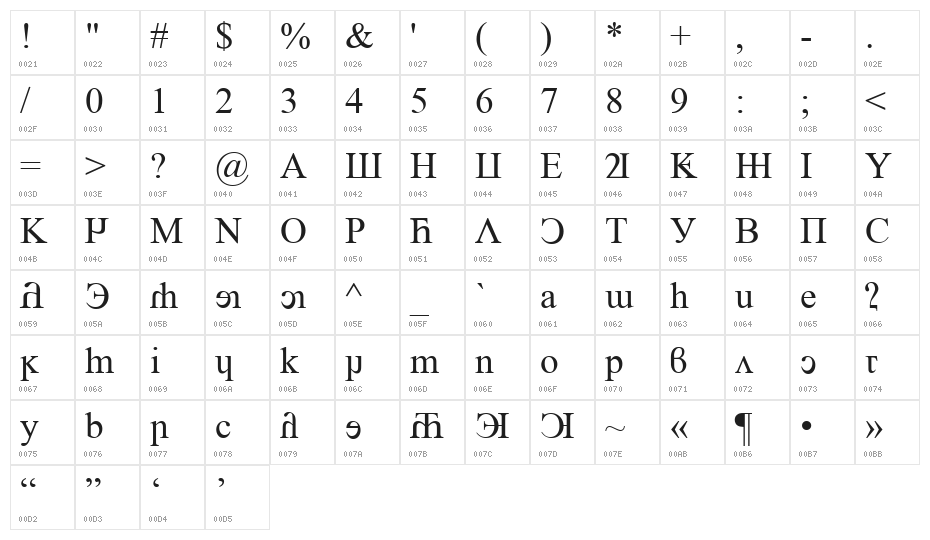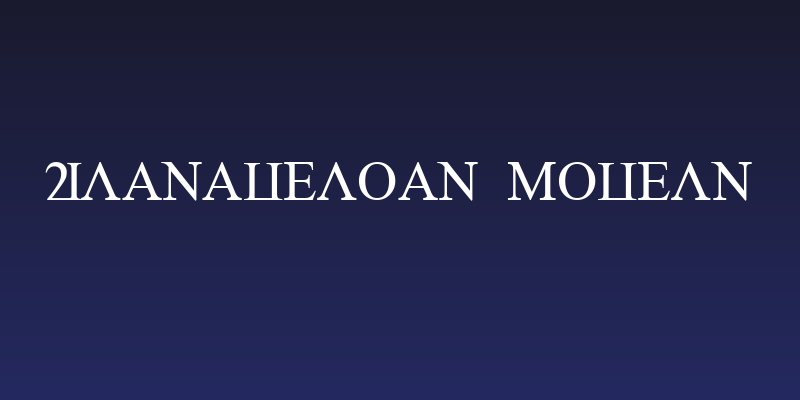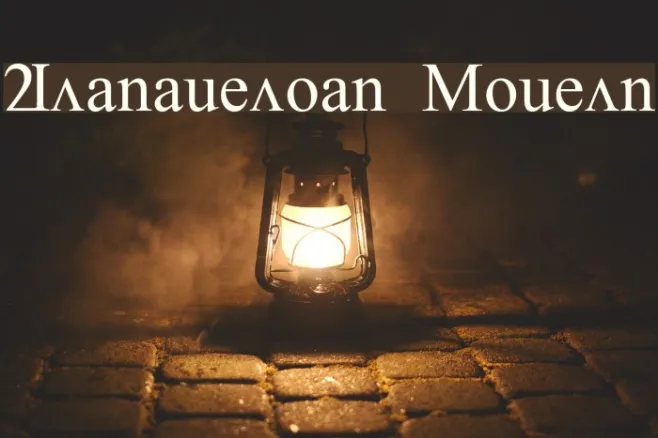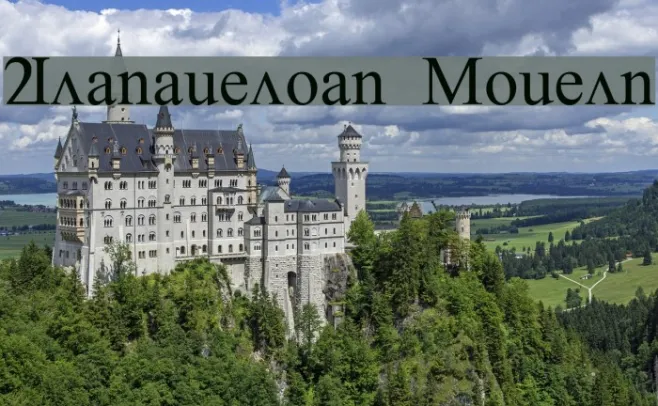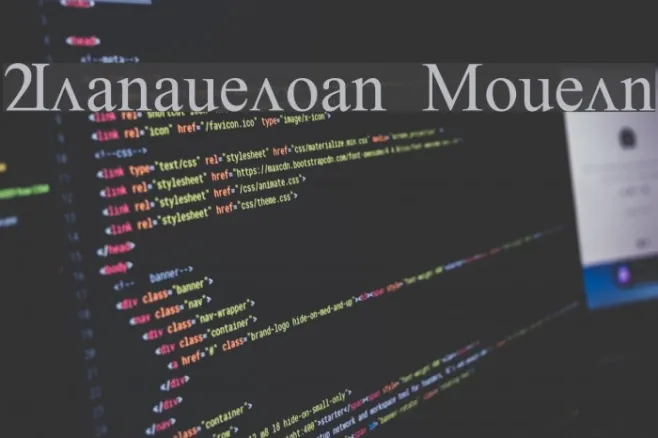
Franaderoan Modern Font
Franaderoan Modern Description
This font features a modern serif style with distinct, sharp serifs and a high contrast between thick and thin strokes. The uppercase letters are bold and commanding, while the lowercase letters maintain a refined elegance. The numerals are clear and well-defined, making them easily readable. Special characters are uniquely designed, adding a touch of sophistication. The overall appearance is both classic and contemporary, suitable for a variety of design needs.
| Use Case | Headlines, Logos, Editorial design |
| Proposed Projects | Ideal for editorial design, branding projects, and elegant invitations. |